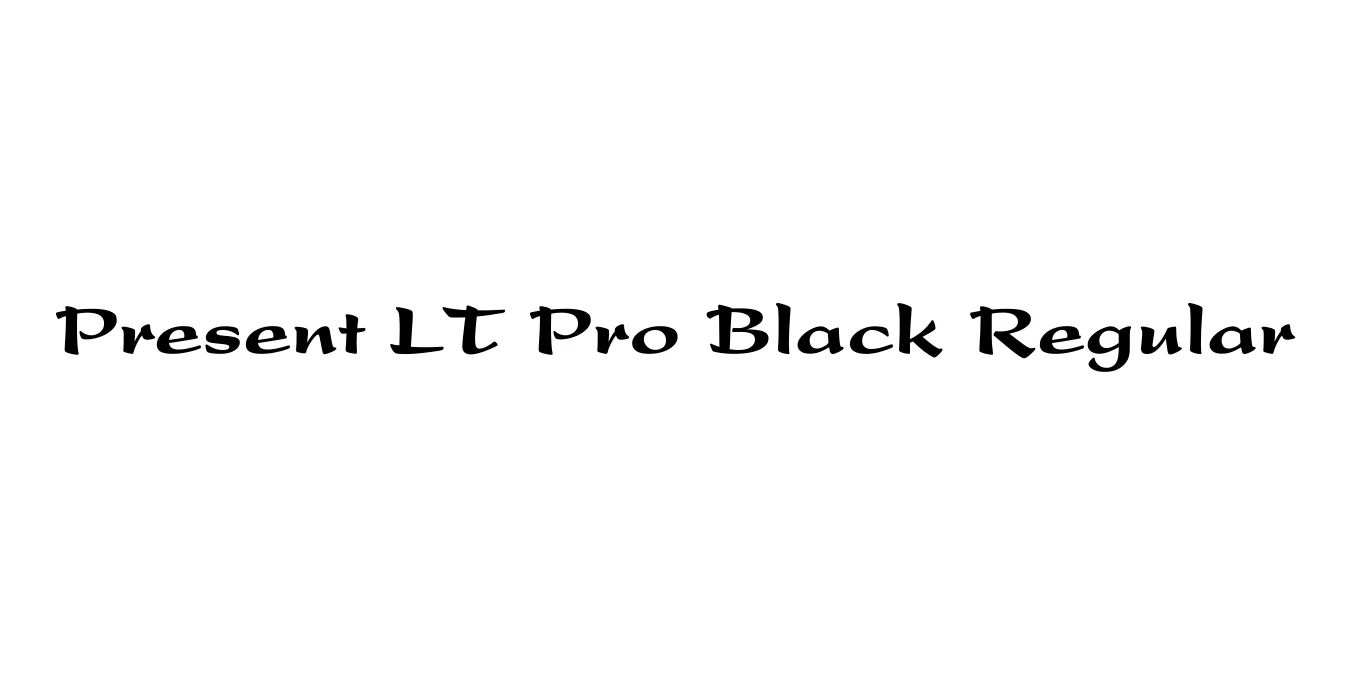
Present LT Pro Black Regular
Designed by Friedrich Karl Sallwey
Present LT Pro Black Regular is a bold, calligraphic typeface designed by the renowned Friedrich Karl Sallwey in 1974 for Linotype. This font stands out in the script family due to its energetic and spontaneous handwritten appearance, mimicking the fluid motion of a brush or broad-tipped pen. The Black weight is specifically crafted to deliver a high-impact visual presence, combining the elegance of traditional calligraphy with the strength of a heavy-stroke display face.
As part of the Pro collection, this version features an expanded character set and sophisticated OpenType features that allow for seamless integration in modern digital workflows. Its rhythmic flow and organic connections between letters make it a favorite for designers who want to convey a sense of personality and craftsmanship. Over the decades, it has remained a staple in the Linotype library, serving as a versatile tool for both classic and contemporary graphic design projects.
Present LT Pro Black Regular Best Uses
Excellent for creating distinct, hand-lettered style logos with a powerful presence.
Adds a sophisticated and personal touch to high-end wedding or event stationery.
Ideal for artisanal or luxury products that need to convey quality and craftsmanship.
Works perfectly for high-contrast headlines in magazines and decorative pull-quotes.